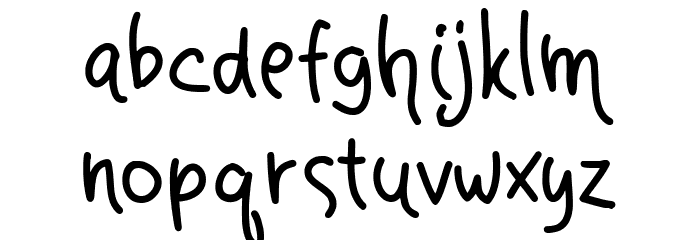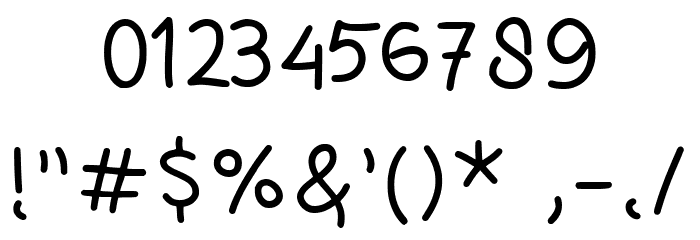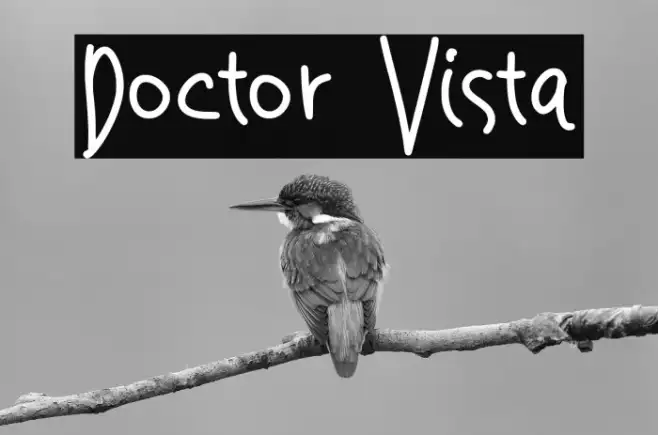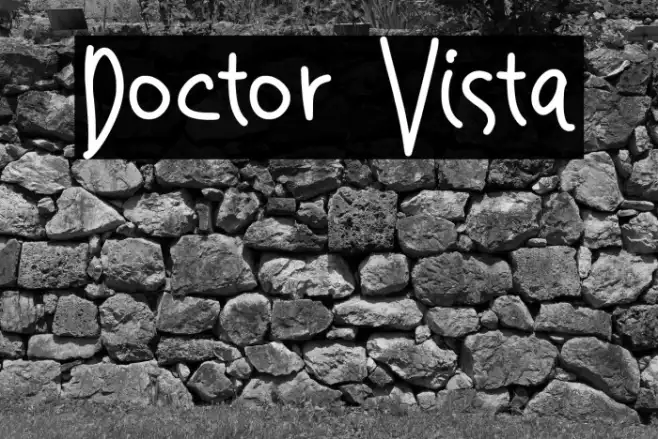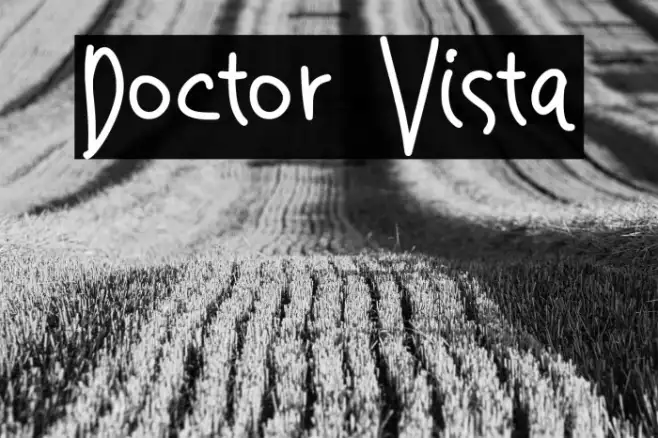
Doctor Vista Font
This font exudes a playful and casual handwritten style, characterized by its irregular and organic letterforms. The strokes are smooth and slightly varied in thickness, giving it a natural and approachable feel. The uppercase letters are tall and slightly narrow, while the lowercase letters maintain a consistent flow with rounded edges. Numbers and special characters follow the same informal aesthetic, making the font versatile for creative projects. Its overall appearance is friendly and informal, suitable for conveying a personal touch.
A playful, casual handwritten font with smooth, organic strokes.
- Proposed Projects: Ideal for greeting cards, children's books, personal blogs, and informal branding projects.
- Overall Style: Casual
- Use Case: Headlines, Informal text, Creative projects